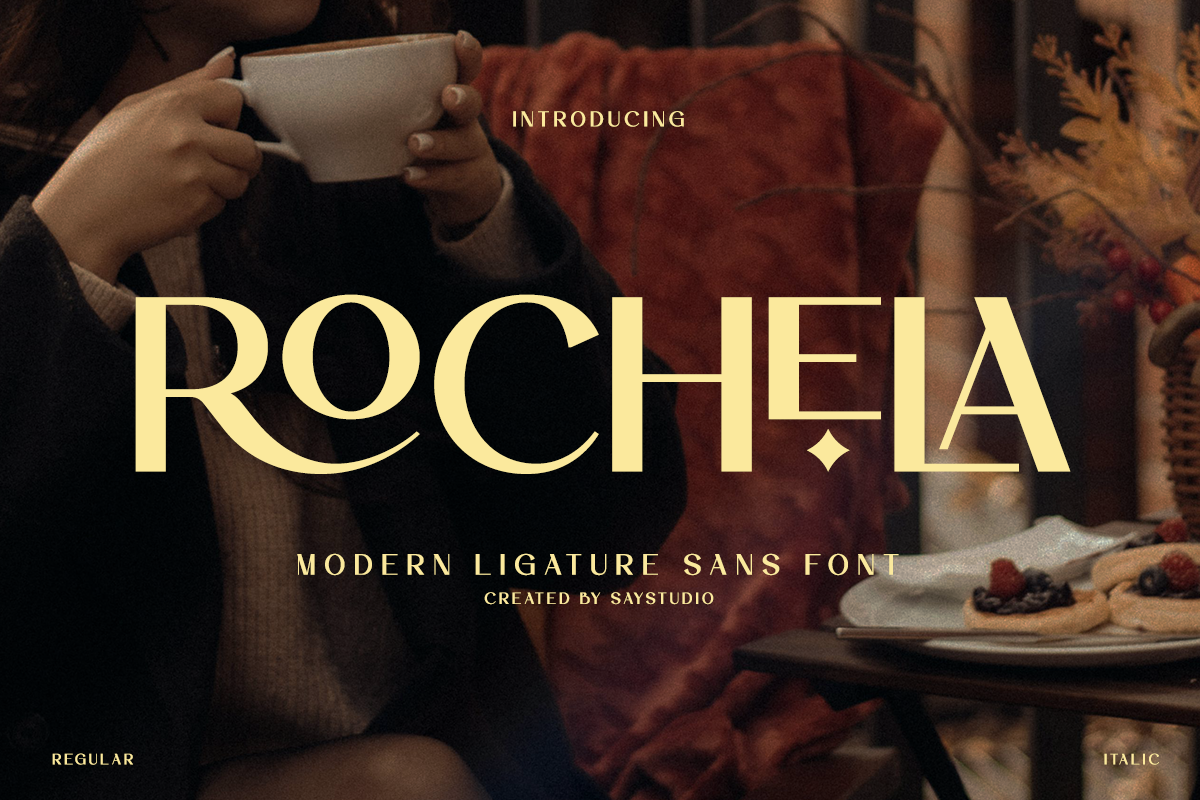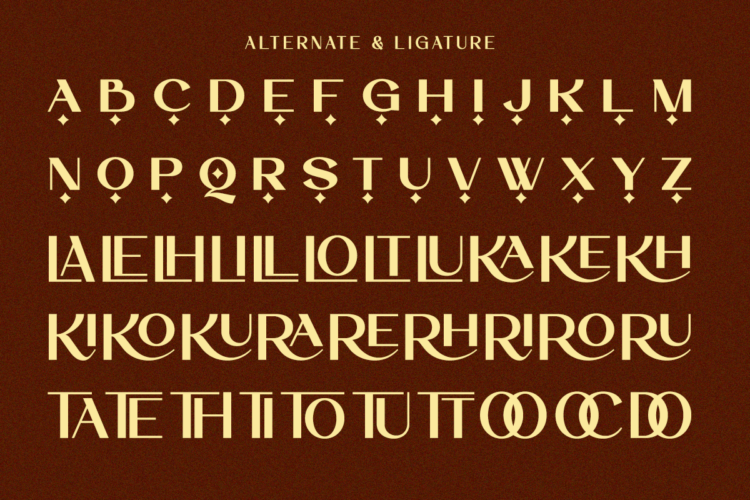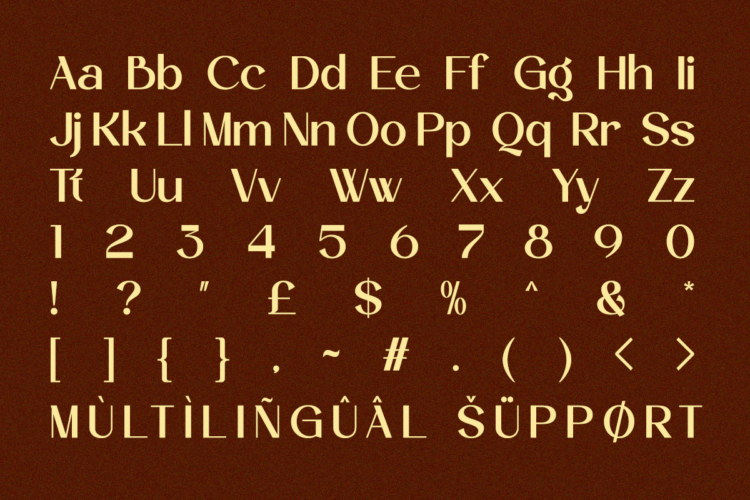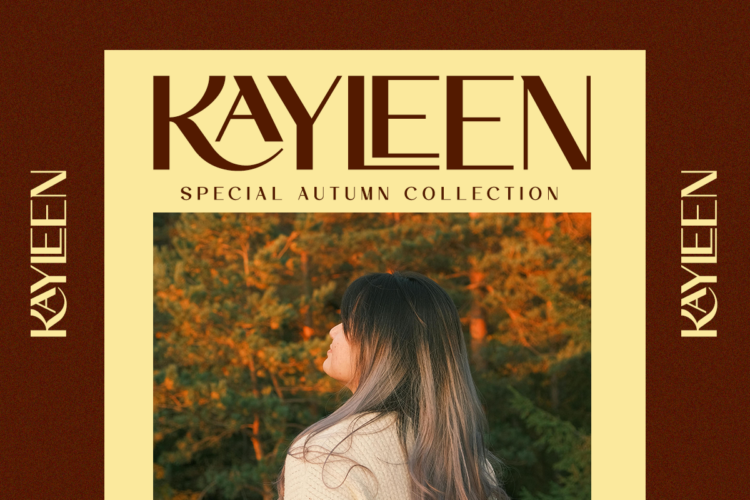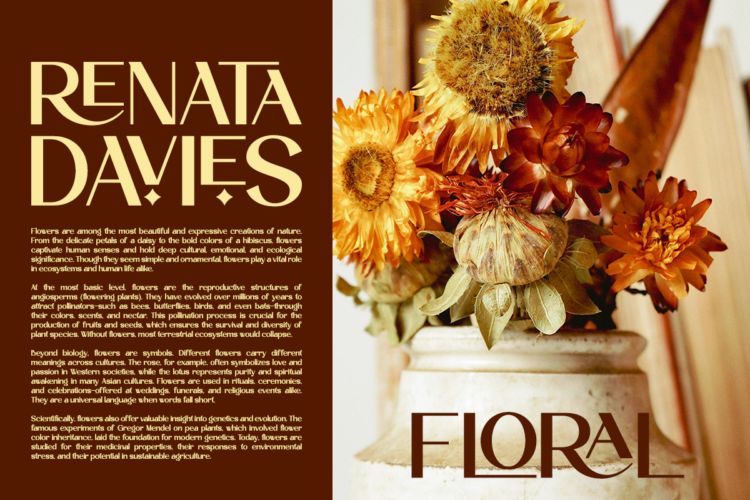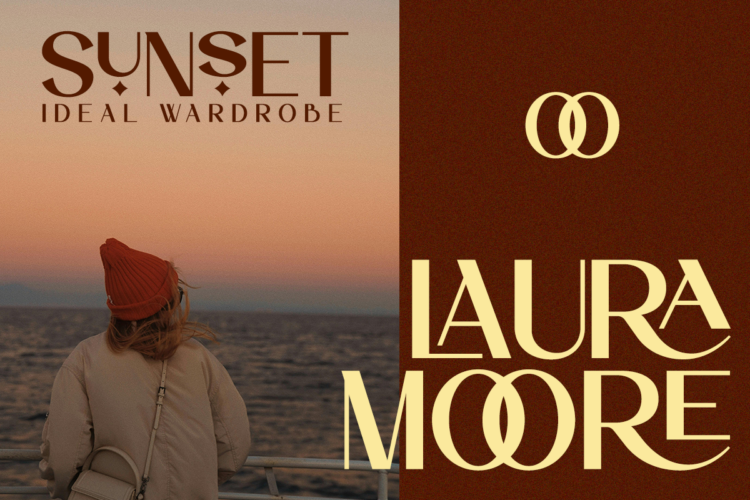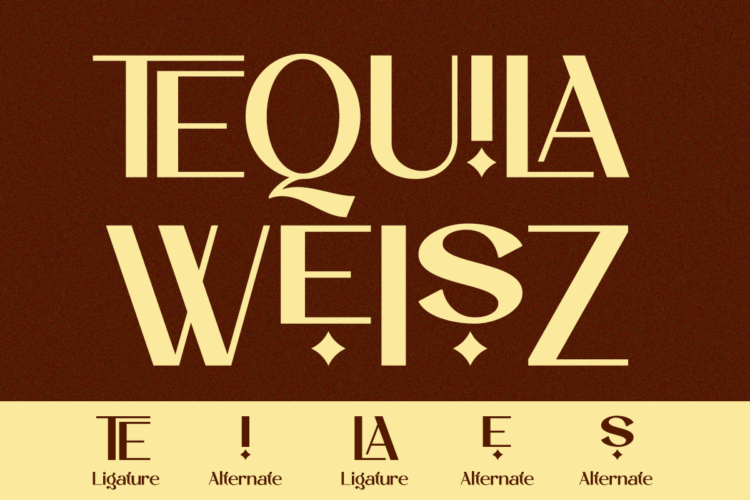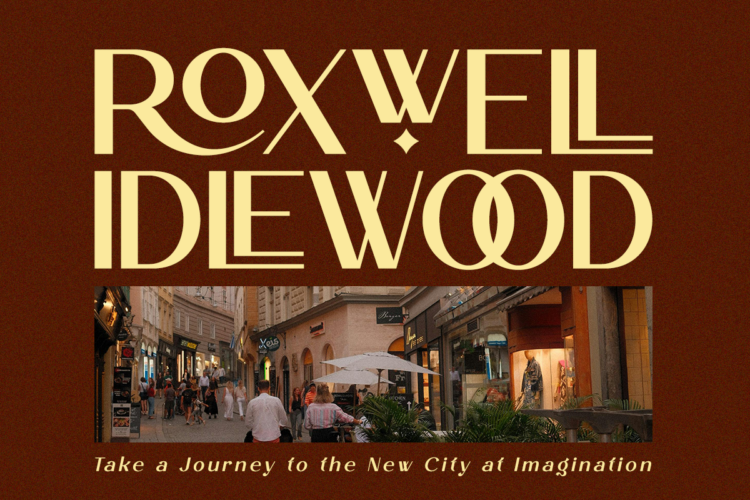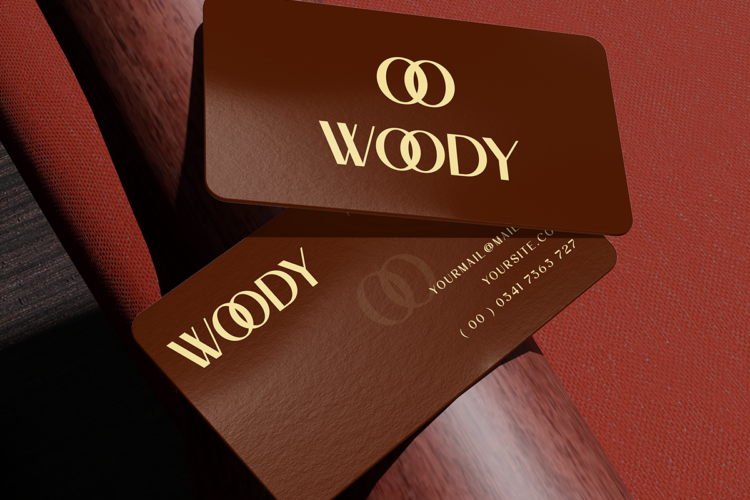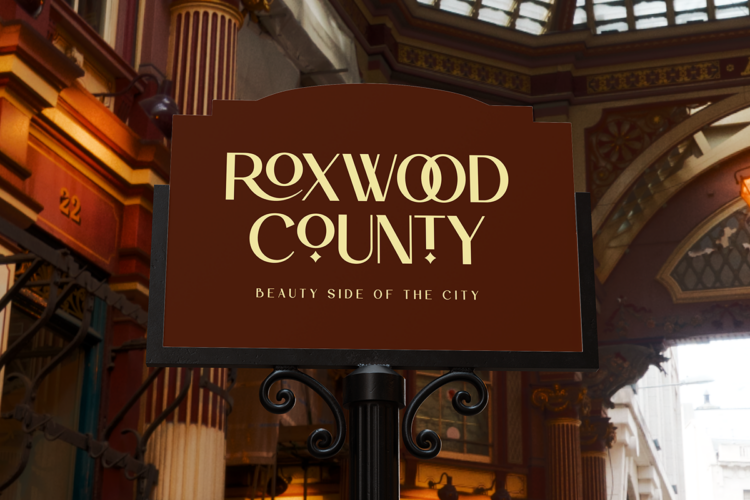
Rochela – Modern Ligature Sans Serif
Rochela is a modern ligature sans serif font that blends contemporary minimalism with refined elegance. Designed with clean geometric letterforms, stylish ligatures, and carefully crafted alternates, Rochela creates a sophisticated visual identity that feels both luxurious and highly functional. Its balanced proportions and distinctive character make it an excellent choice for premium branding and modern design projects.
Perfect for luxury branding, fashion labels, cosmetics, beauty products, architecture, lifestyle magazines, hospitality, editorial layouts, premium packaging, interior design, and corporate identities, Rochela delivers exceptional versatility. Complete with multilingual support, OpenType ligatures, stylistic alternates, numerals, and punctuation, it provides designers with everything needed to create polished, memorable, and professional typography across print and digital media.
Whether you’re designing logos, websites, packaging, advertising campaigns, social media content, magazine covers, product labels, business identities, or elegant marketing materials, Rochela brings a clean and premium aesthetic to every project. Its modern sans serif construction combined with luxurious ligature details makes it an ideal typeface for brands that value simplicity, sophistication, and timeless visual appeal.